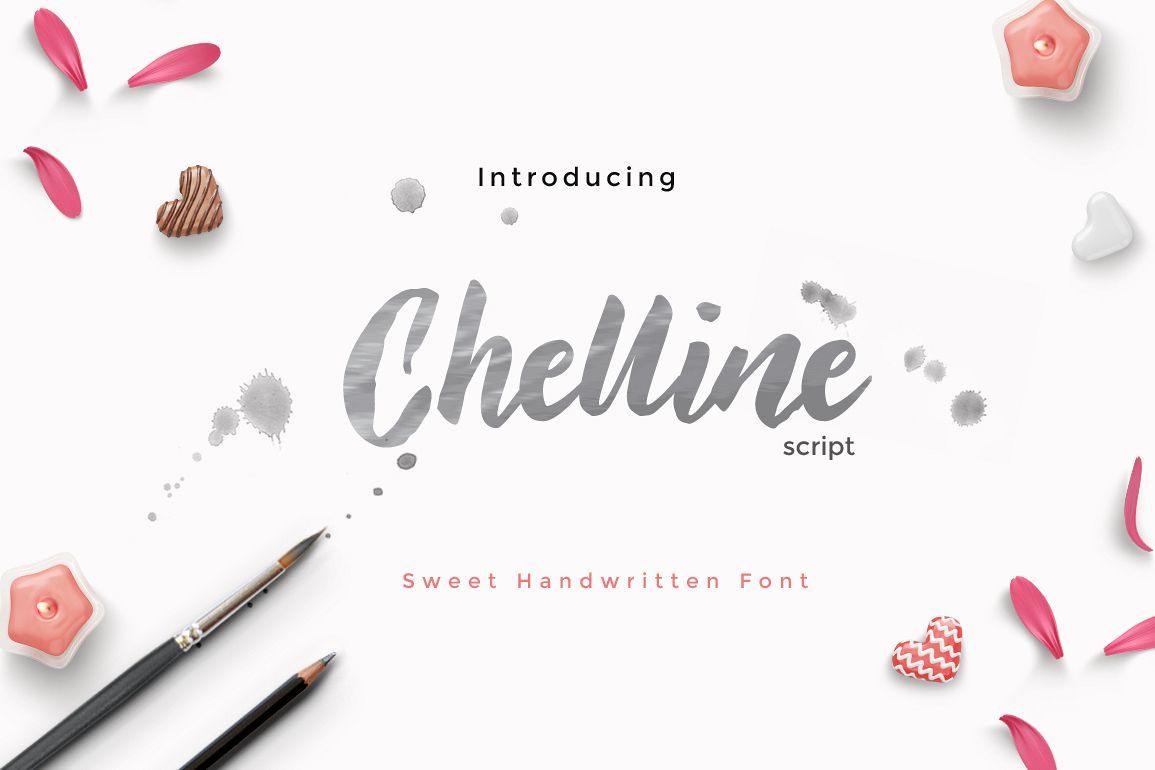
Chelline Brush
Introducing Chelline Brush. The hand-painted manuscripts are inspired by handwritten typographic fonts. This ideal arises when bored approaching, to eliminate boredom created this writing from the results of hand-scribbled.
This font is perfect for; Logo, clothing design, invitations, brochures, posters, greeting cards, product packaging, headers, printed quotes, album covers, etc.